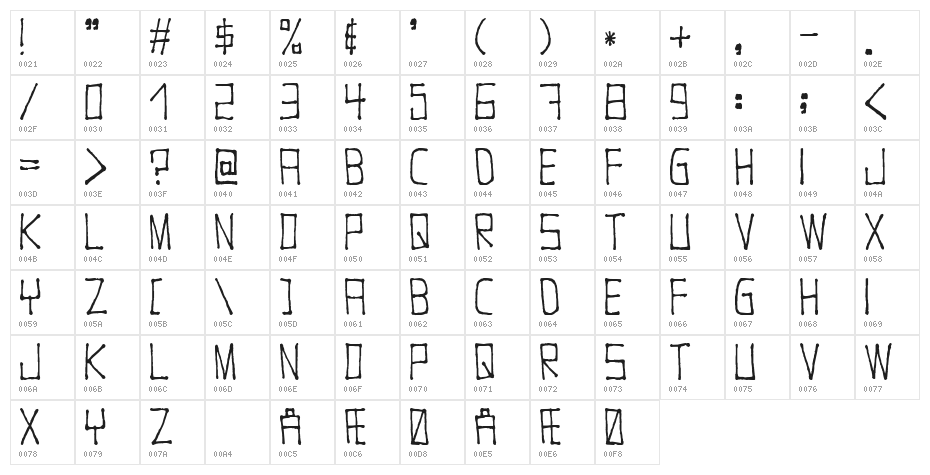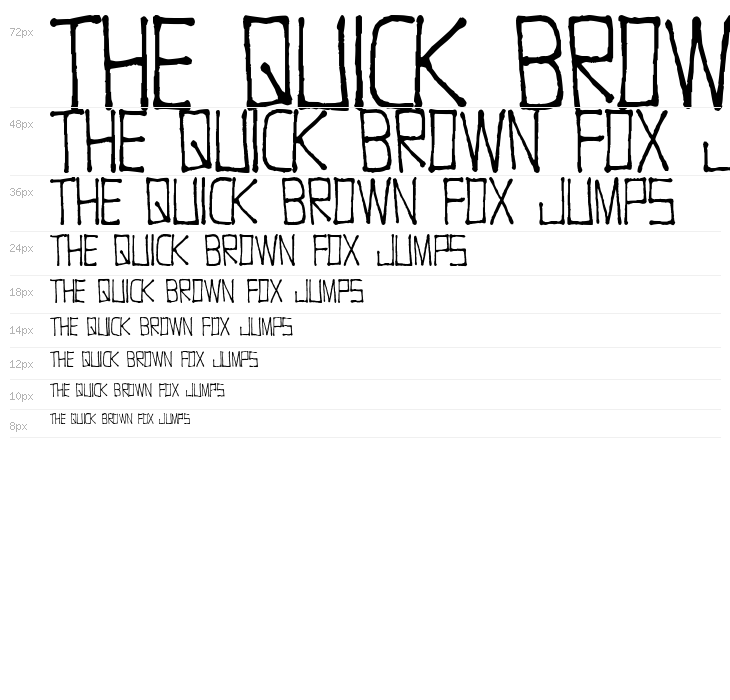
Nugacity Font
Nugacity Description
This font features a hand-drawn, organic style with a rough, textured appearance. The characters are uppercase and lowercase letters, numbers, and a selection of special characters. Each letter has a unique, slightly irregular form, giving it a playful and informal feel. The strokes are uneven, with varying thickness, adding to the hand-crafted aesthetic. The overall look is reminiscent of a casual, artistic script, suitable for creative projects that require a personal touch. The spacing between characters is relatively tight, enhancing the cohesive look of the text. This font is ideal for designs that aim to convey a sense of individuality and creativity.
| Use Case | Logos, Headlines, Artistic projects |
| Proposed Projects | Ideal for greeting cards, posters, artistic branding, and creative social media graphics. |